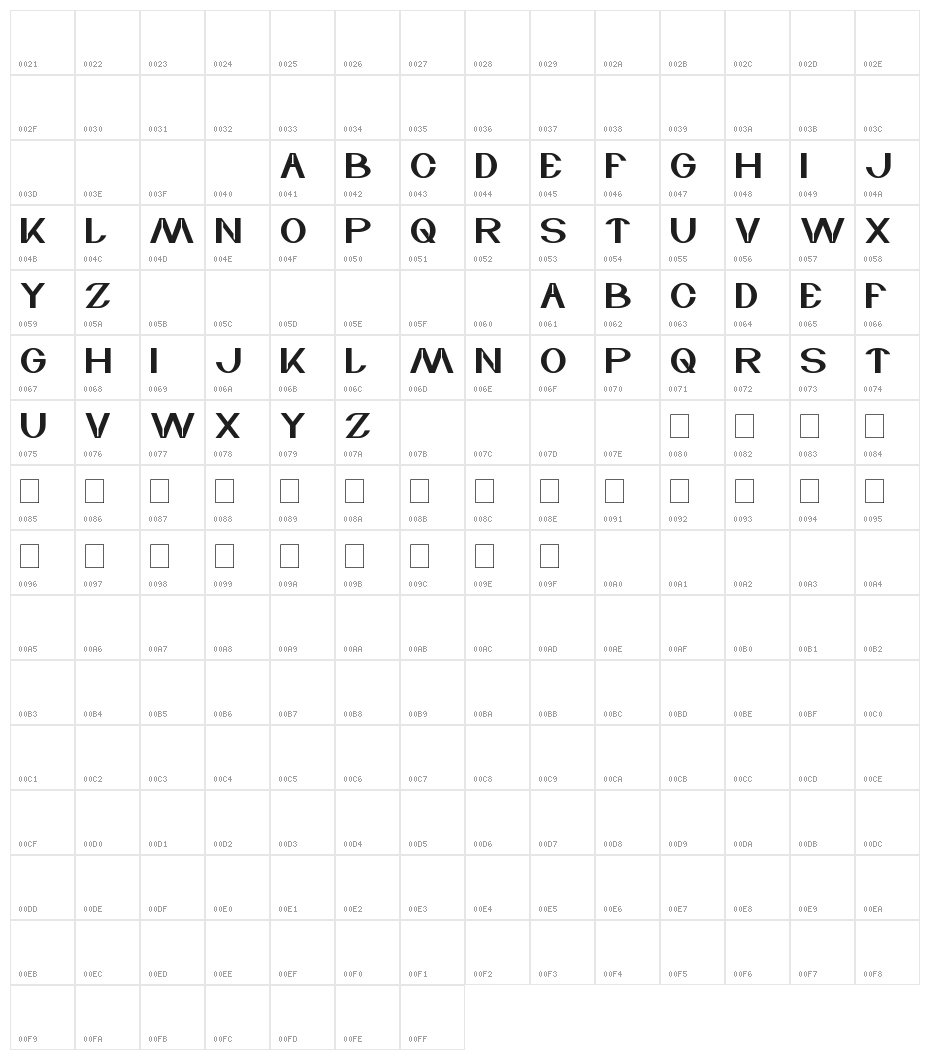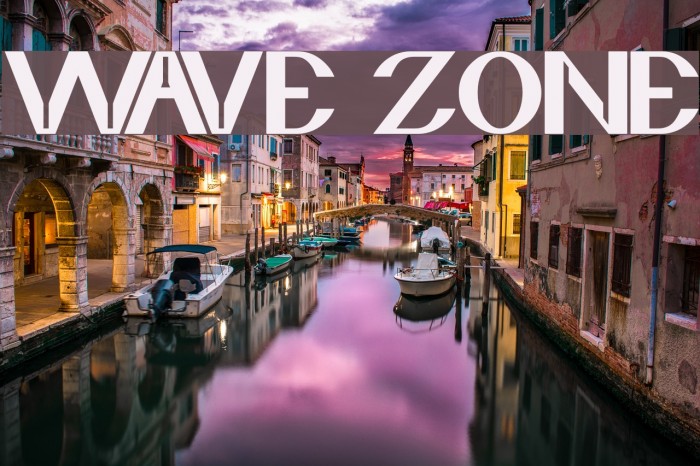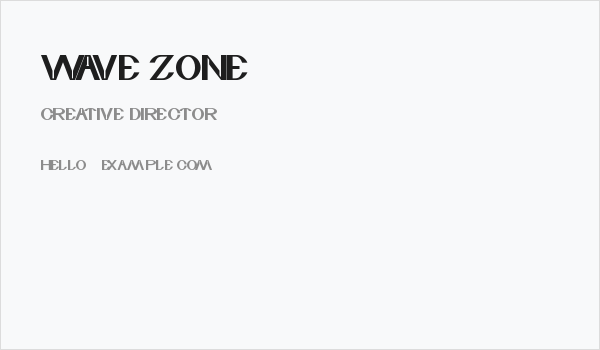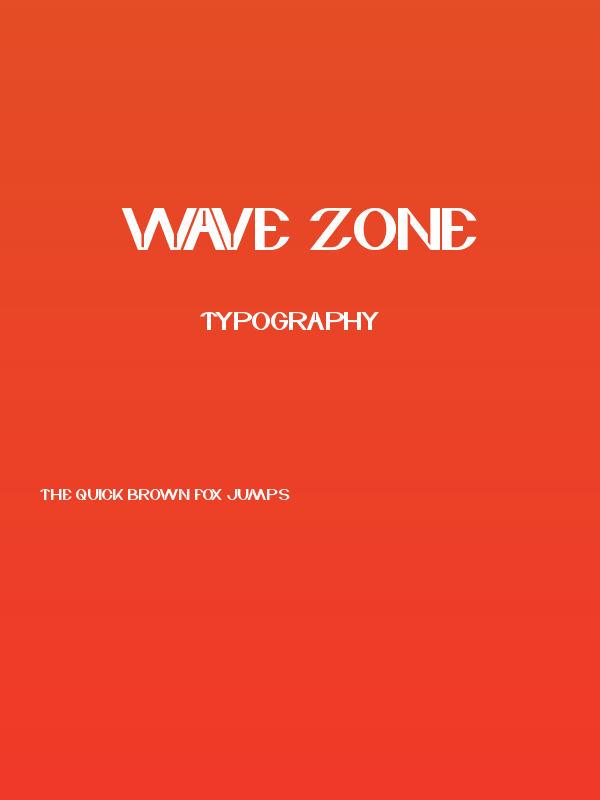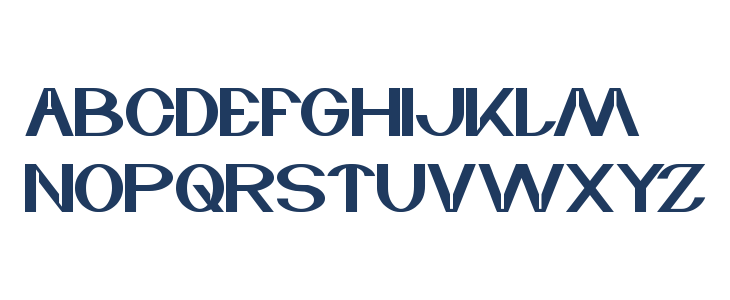
wave zone Font
wave zone Description
This font features a bold and striking design with a modern flair. The characters are crafted with a unique geometric style, incorporating sharp angles and clean lines that create a sense of movement and energy. The uppercase letters exhibit a consistent height and width, contributing to a balanced and cohesive appearance. The font's distinctiveness is further enhanced by its innovative use of negative space, which adds an element of sophistication and intrigue. This typeface is well-suited for projects that require a contemporary and impactful visual presence.
| Proposed Projects | Ideal for branding, advertising, headlines, and modern design projects. |